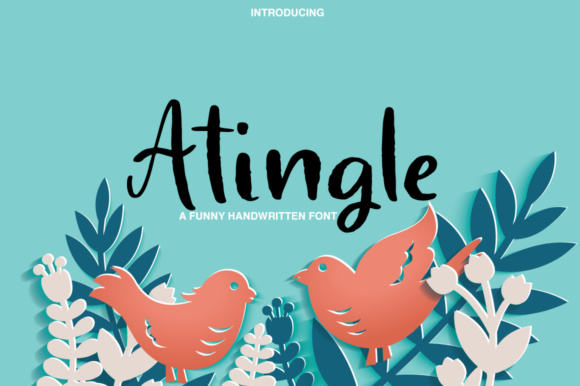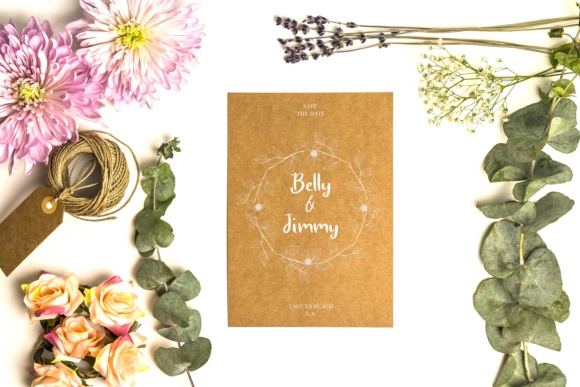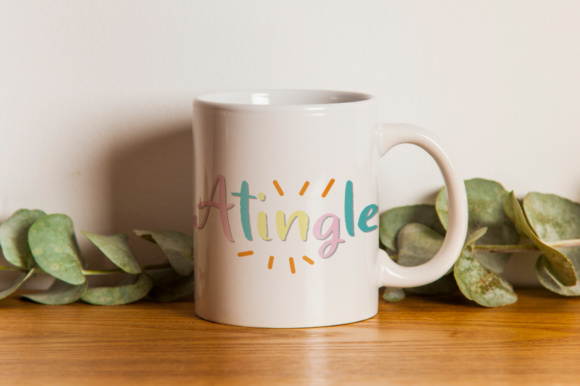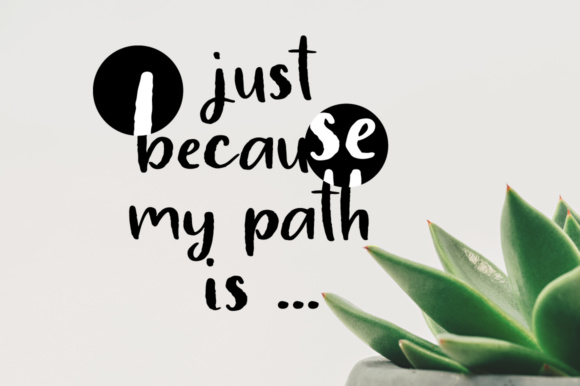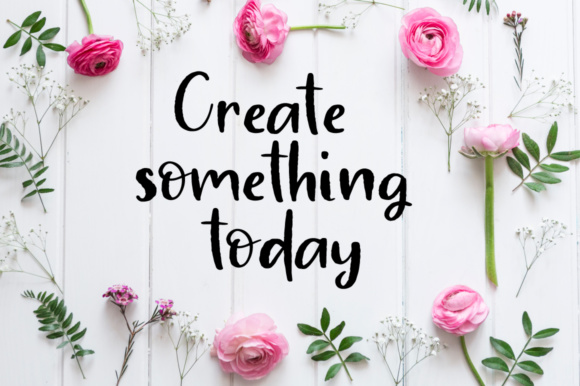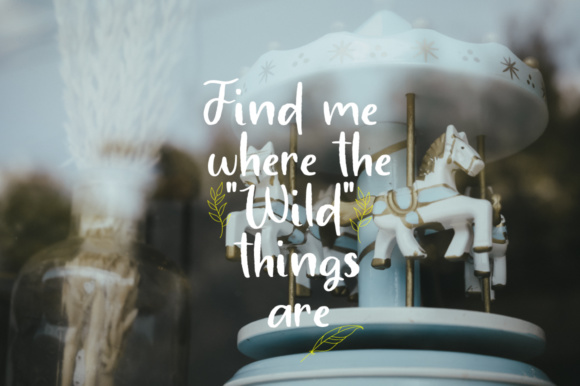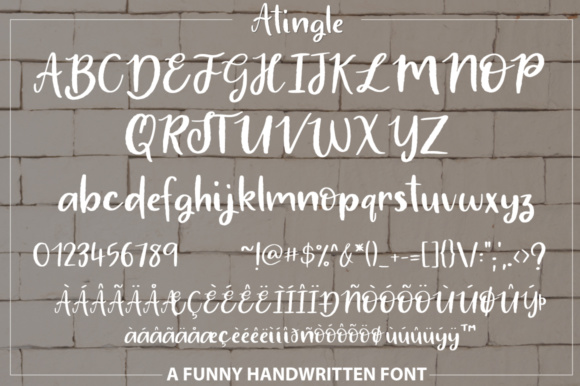
Atingle Font
About Atingle Font
The Atingle is a casual font with a multitude of letter variations to make that perfect and unique design.
It’s perfect for wedding invitations, logos, blogs, book covers, and much more!